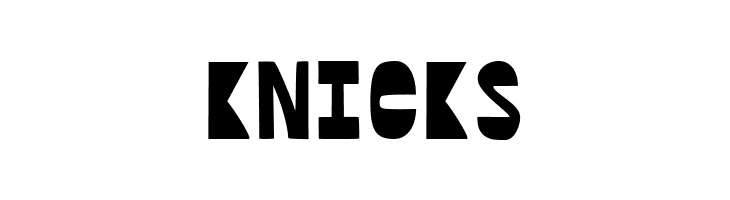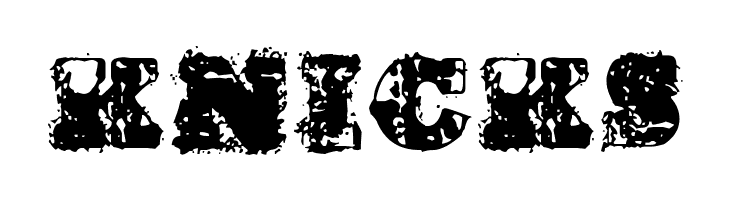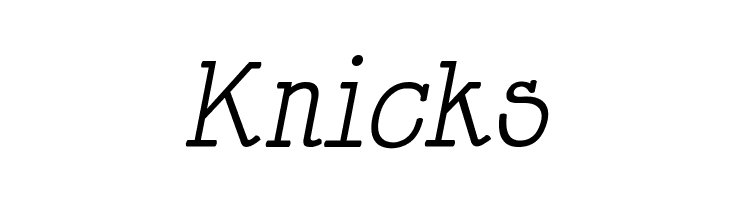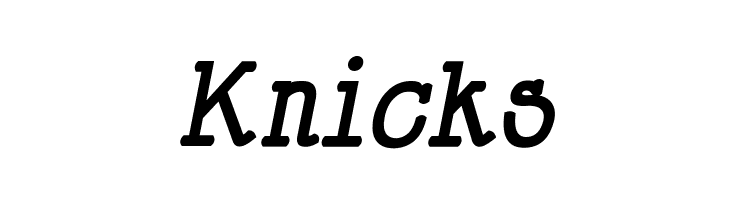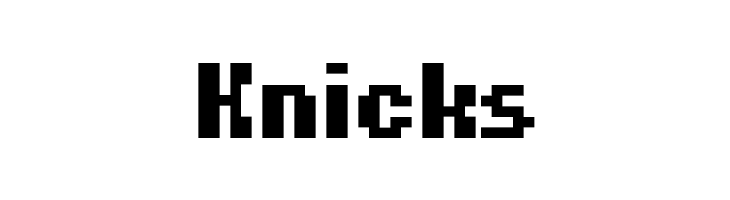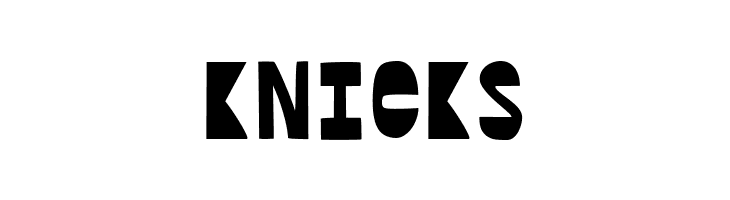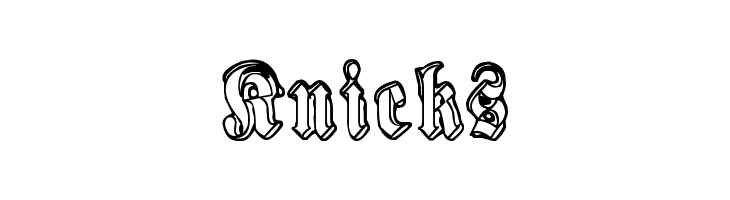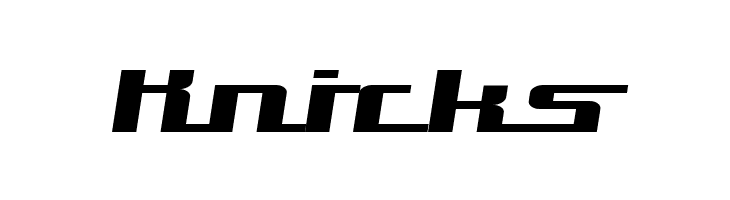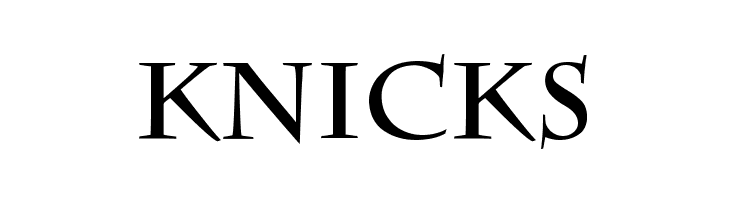
• HappyPhantom Bold Italic
A bold and italic serif font with a dynamic and elegant appearance.
• HappyPhantom Italic
An elegant italic font with smooth curves and a modern twist.
• Hardman
A bold, angular font with a futuristic and industrial design.
• Hardpixel
• HardQuestions
A bold, geometric font with artistic flair and dynamic shapes.
• Hardwell
• Harmaa Perkele
A bold, ornate blackletter font with a gothic, medieval style.
• HarryPotter7
A dramatic serif font with sharp, pointed serifs and a medieval flair.